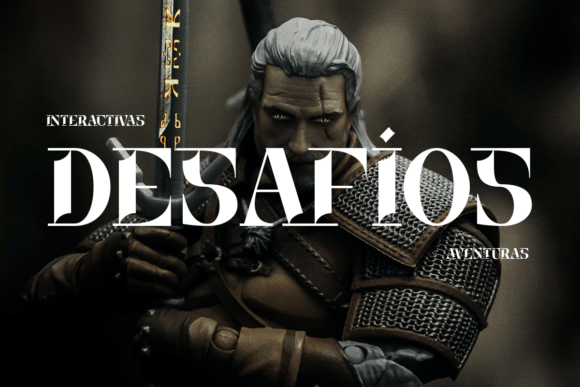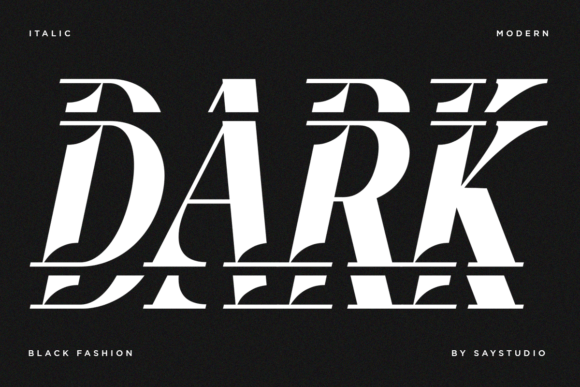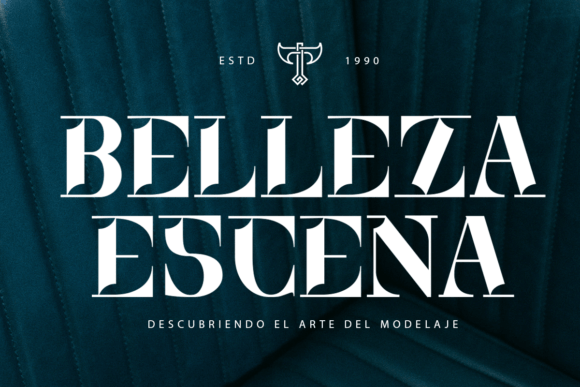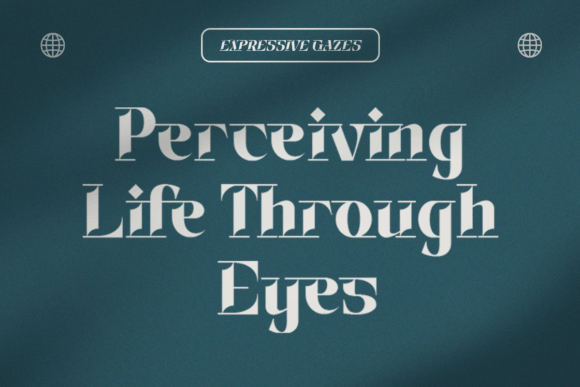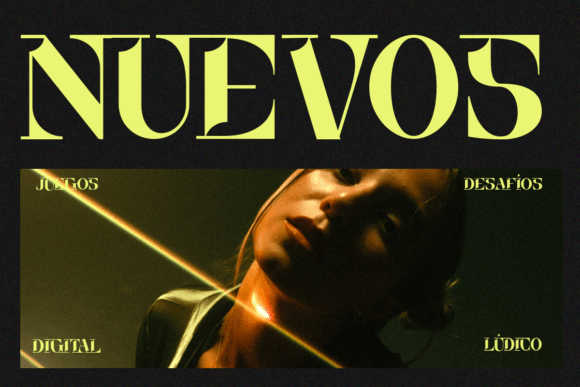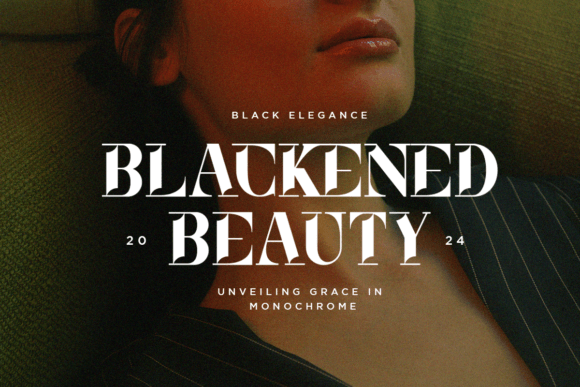
I still remember the frustration of working on a project, hours spent crafting the perfect layout, only to realize that the font I chose wasn’t quite right. The client wanted something elegant, yet modern; something that would make their brand stand out. I scoured the internet, tried out countless fonts, but nothing seemed to fit. That was until I stumbled upon Dinamika, a Modern Display Serif Typeface that has since become a staple in my design toolkit.
A Personal Review of Dinamika
- ✨ Modern and elegant: Dinamika’s sleek design makes it perfect for corporate identities, websites, and publications.
- ✅ Versatile: With an italic version and ligatures, Dinamika adapts easily to various design needs.
- 💼 Professional: This typeface exudes a sense of sophistication, making it ideal for titles, books, magazines, and business cards.
The Not-So-Perfect Details
While Dinamika is an excellent font, it’s not without its quirks. 🤔
- ⚠️ Limited use in body text: Due to its elegant and modern design, Dinamika might not be the best choice for lengthy body text.
- ⚠️ Some characters may require manual kerning: As with any font, you might need to adjust kerning for certain character combinations.
The Story Behind Dinamika
Dinamika was designed with the modern designer in mind. Its creator aimed to craft a font that would be both elegant and versatile, suitable for a wide range of design applications. The result is a typeface that exudes sophistication and poise.
| Font Name | Dinamika Font |
| Author | SayStudio |
| What is Dinamika’s style? | Dinamika is a Modern Display Serif Typeface with an elegant and versatile design. |
| Does Dinamika support OpenType features? | Yes, Dinamika supports OpenType features, including ligatures and stylistic alternates. |
| Can I use Dinamika for body text? | While Dinamika is elegant and modern, it might not be the best choice for lengthy body text. It’s better suited for titles, headings, and short paragraphs. |